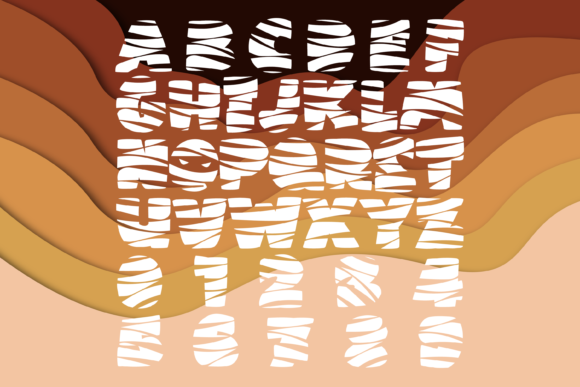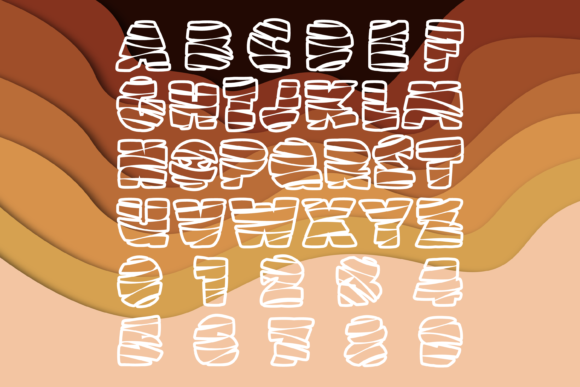
Introduction to Little Mummy Duo Font
Little Mummy Duo is a cool and thick lettered decorative font, with characters shaped as mummies.
Little Mummy Duo Font offers exceptional quality and versatility, making it a valuable addition to your design toolkit. Whether you’re creating for personal projects or commercial use, Little Mummy Duo Font delivers professional results.